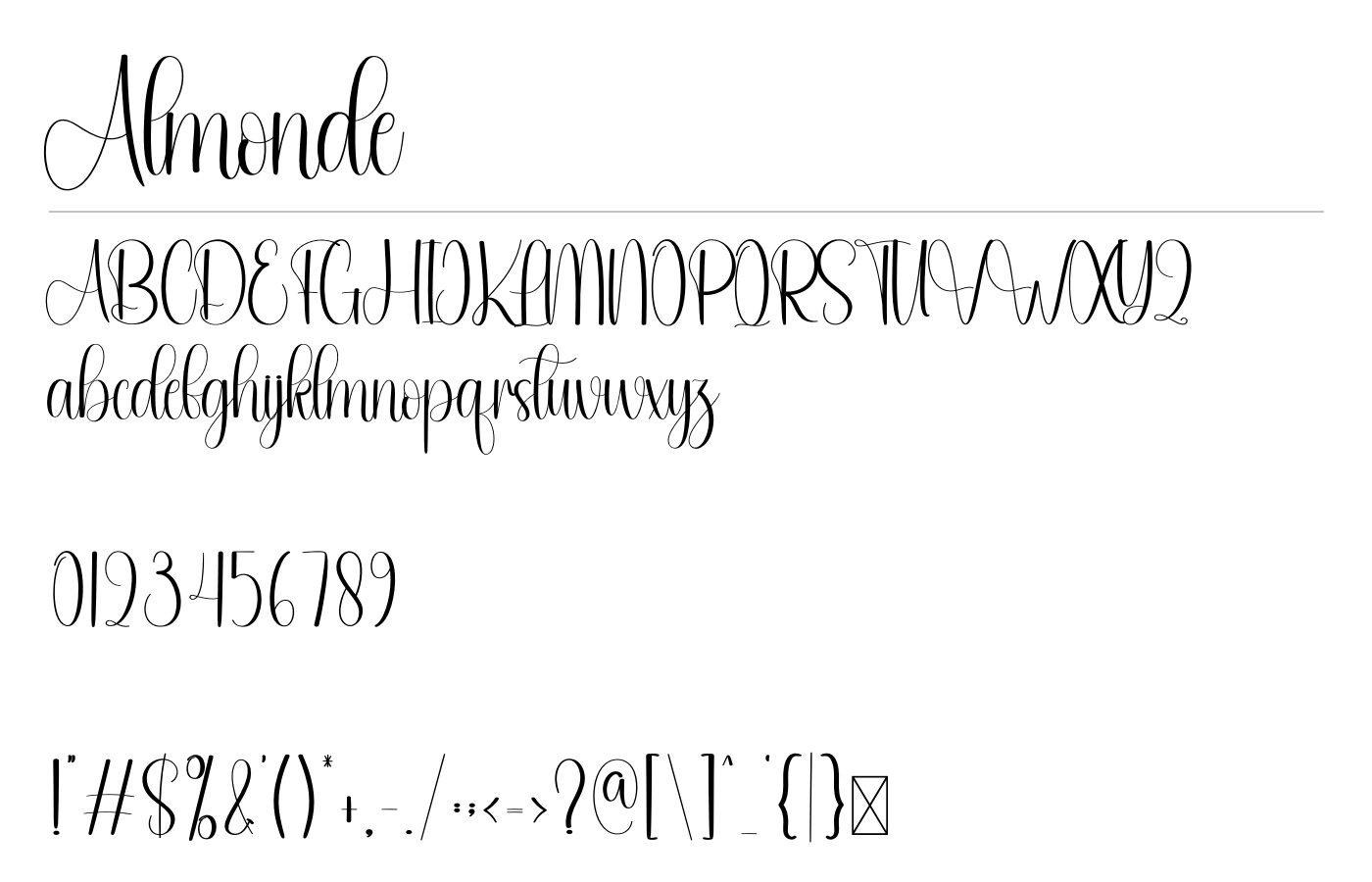
Almonde is an elegant, handwritten script font characterized by its tall, slender letterforms and delicate, swirling strokes that give it a graceful and sophisticated personality. Its high contrast between fine hairlines and thicker strokes, combined with whimsical flourishes, makes it ideal for luxury branding, wedding invitations, and stylish editorial headlines where a touch of refined artistry is desired. This font excels in projects that want to convey elegance and charm with a modern, artistic flair.
Almonde Font
About Almonde Font